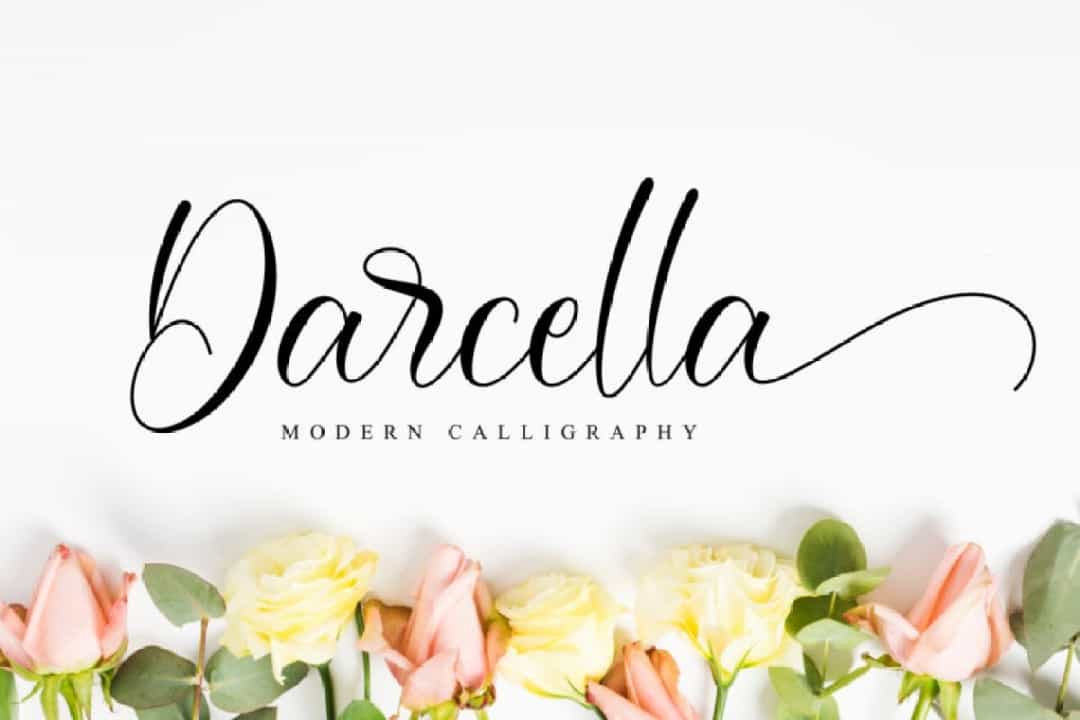
Darcella is a script font with elegant charm to it. Applying hand calligraphy and modern, minimalist style, Darcella is perfect for using in logo, branding invitation, wedding stationery and even social media post, handwriting style – great for logo design!